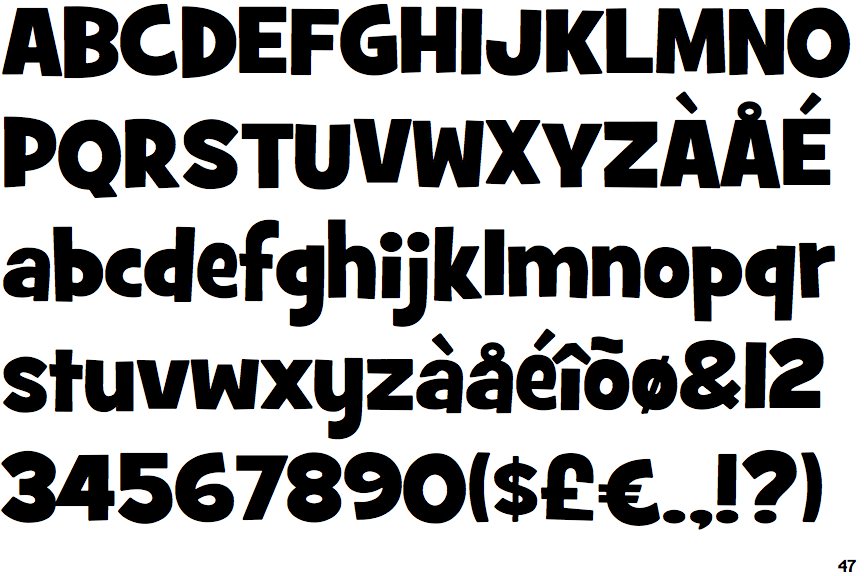
Sid the science kid font.
Grilledcheese btn toasted is the perfect font for all your fun designs. October 21, 2021 post a comment fonts free letter scary. Grilled cheese was cooked up to be one of the most versatile display typefaces ever created.
You can use the grilledcheese btn to create interesting designs, covers, shop and store name and logos. The font grilledcheese btn is also perfect for branding projects, homeware designs, product. The “super” part of the tv title looks like an obliqued version of grilled cheese regular, and the “why” part could be heavily modified grilled cheese, or an obliqued version of bebas neue.
Easily add text to images or memes. Thousands of designers (famous or not) use the image font detection system to find a font or similar free fonts from an image. Grilledcheese btn toasted is free for personal use only.
Thousands of designers (famous or not) use the image font detection system to find a font or similar free fonts from an image. Although we have the largest database of fonts, the search for a font from an image gets mixed results like the image above. Download more than 10,000 free fonts hassle free, desktop and mobile optimized, around for more than 20 years.
The font grilledcheese btn wide is also perfect for branding projects. Please, talk with the author for commercial use or for any support. Please, talk with the author for commercial use or for any support.
Please, talk with the author for commercial use or for any support. Although we have the largest database of fonts, the search for a font from an image gets mixed results like the image above. Grilled cheese btn cond bold.